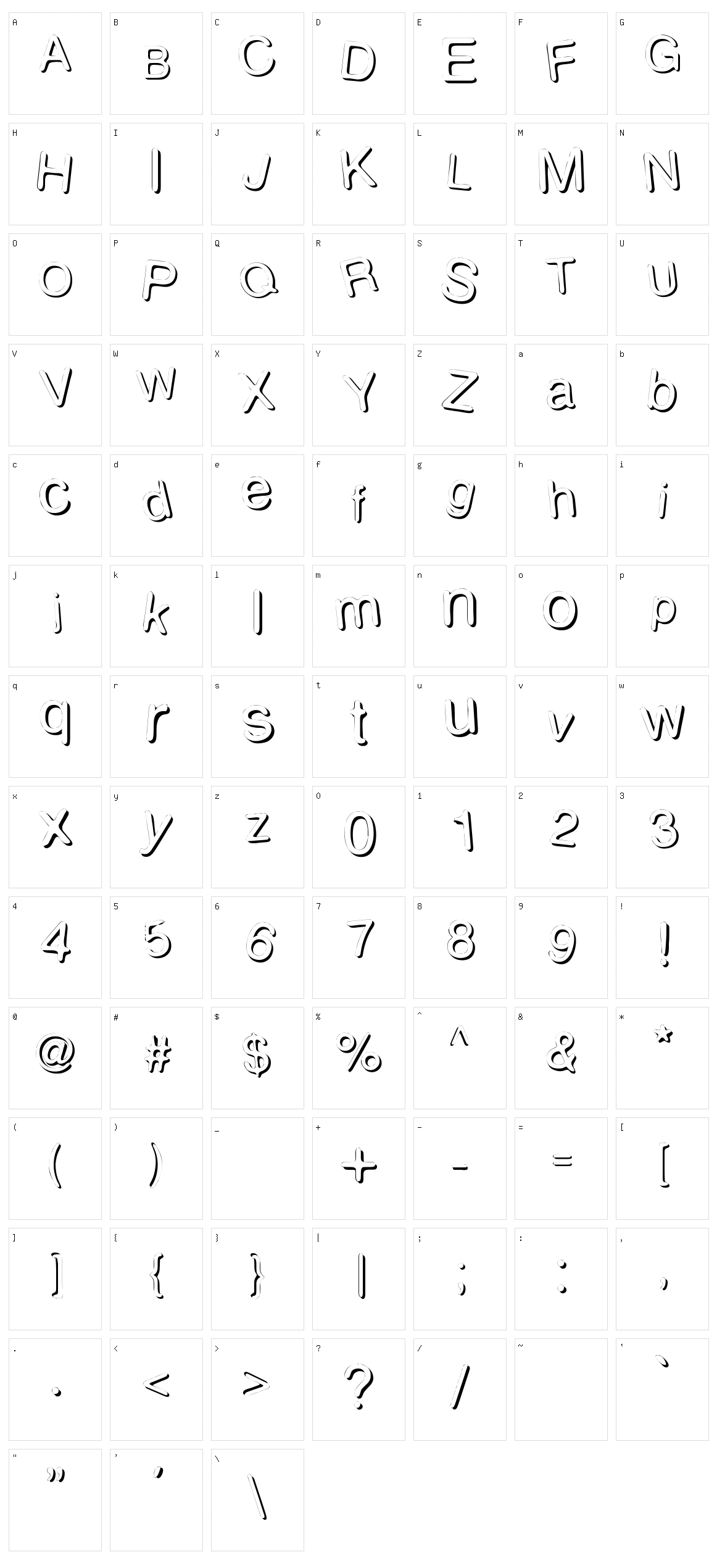
The free font Woodcutter Sutil Shadow is carefully designed by Woodcutter, showcasing a thoughtful balance of creativity and usability and falls under the Cartoon font style. When you download the ZIP file, it contains only 54.86 KB of font files, making it lightweight and quick to download. Please review the license details below to understand permitted usage and distribution rights. If license information is not available, we recommend using this font for personal projects only or contacting the author directly for commercial usage permissions.